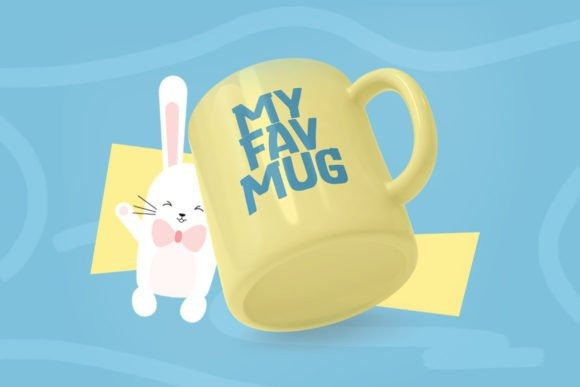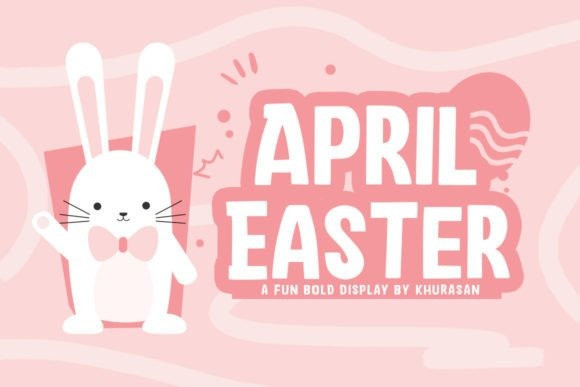
April Easter Font
April Easter Display Font is a modern and fancy display font perfect for posters, logos, magazines, book covers, banners, and many more! Get this quirky display font, and use it to create lovely designs!